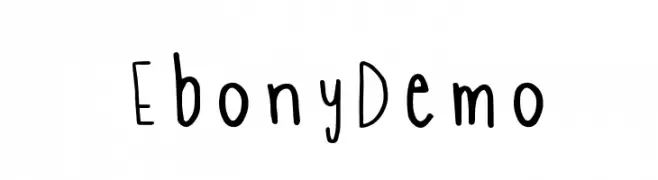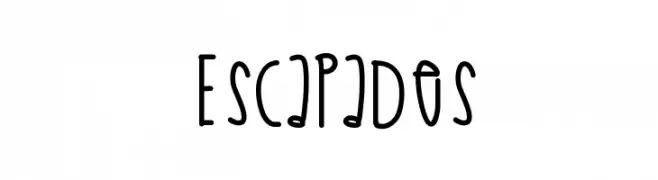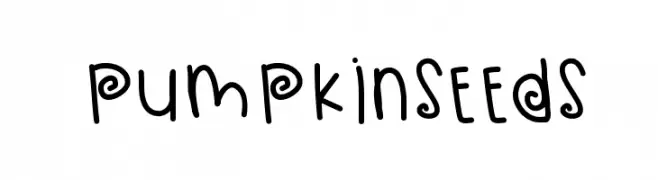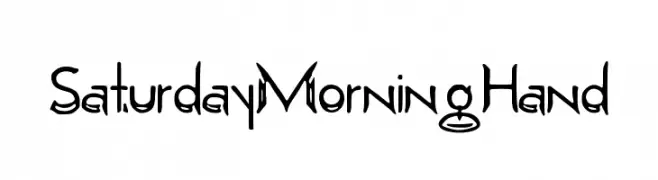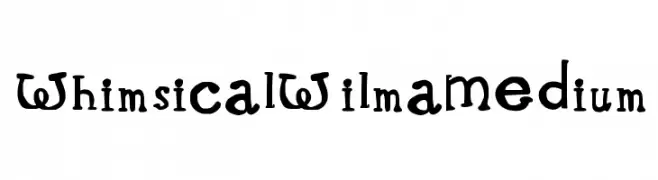
( Alex - Alexander Mann - www.alexandermanndesign.com )
A playful, quirky sans-serif font with a whimsical design.
( AlnelExtreme - Alnel Vincent Alico - www.alnelextreme.webs.com )
A playful, hand-drawn font with irregular strokes and a quirky style.
( Ana Perestrelo - anaperestrelo.bigcartel.com )
A playful, hand-drawn serif font with quirky serifs and consistent stroke width.
( Atila Milanio - atilamilanio.com )
A bold, playful font with a hand-drawn, irregular style.
( Barry Stock )
A playful, hand-drawn font with quirky, irregular shapes.
( Cheryl Killian - www.whimsicalinklings.com )
A playful and whimsical font with quirky, irregular letterforms.
( Des Gomez )
A playful, hand-drawn font with tall, narrow letters and quirky details.
( Des Gomez )
A playful, hand-drawn font with a whimsical and quirky style.
( Dismantle Destroy - Matthew Tyndall - creativemarket.com/Dismantle )
A playful, handwritten font with tall, narrow, and quirky letterforms.